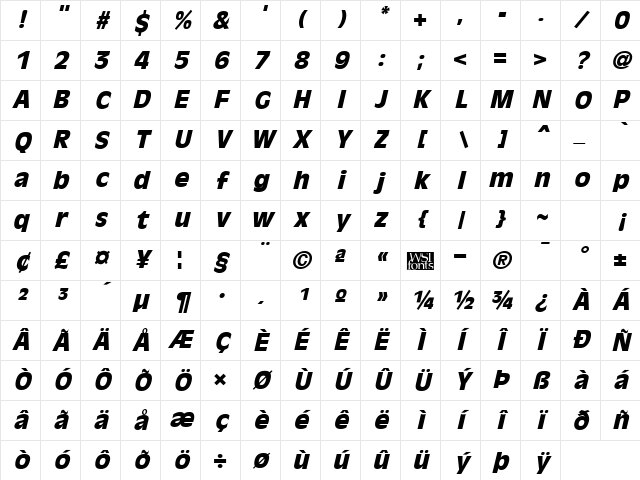
OliviaAntiqueBlack Italic
Design Context for OliviaAntiqueBlack
OliviaAntiqueBlack wears its vintage influences proudly, with letterforms that recall mid-century signage, classic packaging, and nostalgia-driven design. The slanted form adds forward momentum and visual energy.
Font Pairing: Combine OliviaAntiqueBlack with a simple slab or neutral sans - period-accurate companions reinforce the vintage feel without competing for attention.
Pro Tip: Lean into OliviaAntiqueBlack's period character by pairing it with aged paper textures, muted colour palettes, and vintage illustration styles.